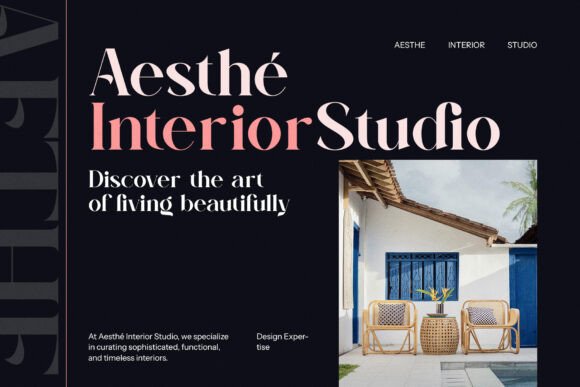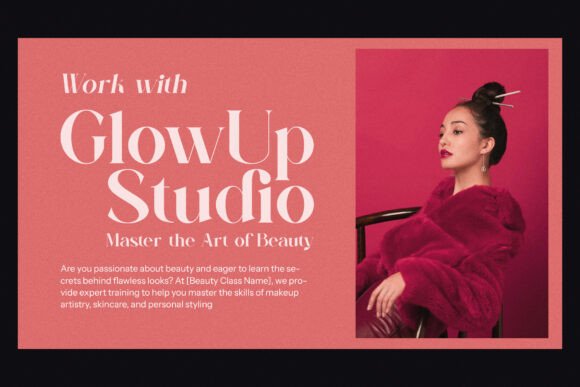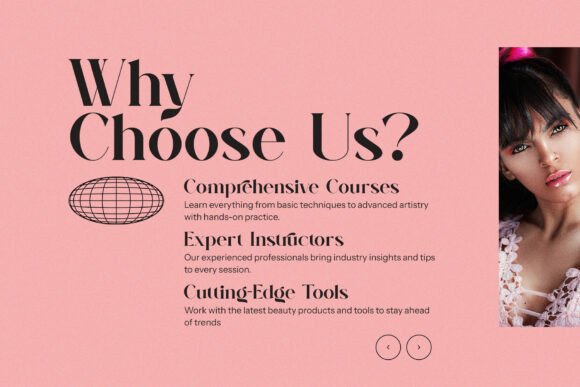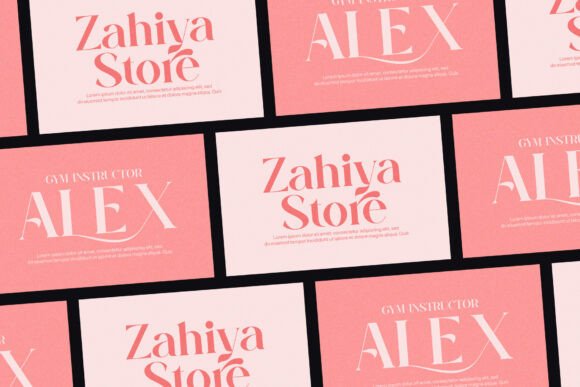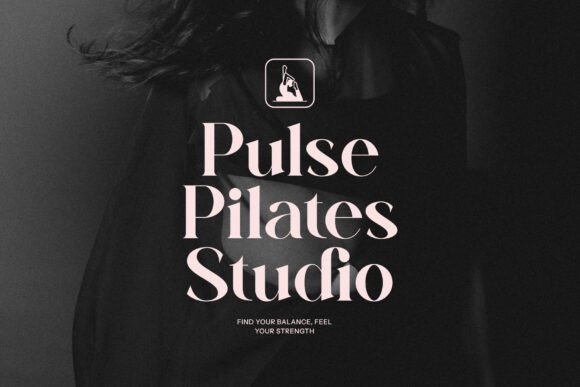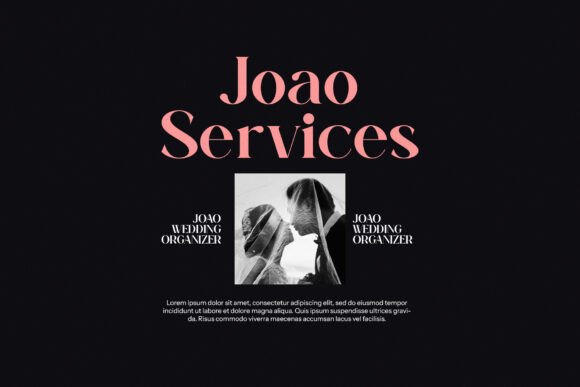
Bloxe Font: Elevate Your Designs with Modern Sophistication
In the world of typography, a font can make or break the visual identity of a brand. For designers and crafters seeking to create a lasting impression, Bloxe Font emerges as a game-changer. This modern typeface redefines sophistication with its clean lines, refined serifs, and artistic details, offering a perfect blend of timeless elegance and contemporary flair.
The Essence of Bloxe Font
Bloxe is more than just a font; it’s a statement piece. Designed to make an impact, it brings a sense of luxury and refinement to any project. Whether you’re creating a logo for a high-end brand, designing product packaging, or curating an eye-catching website, Bloxe is the go-to choice for designers who aim to captivate their audience.
Key Features of Bloxe Font
• Clean Lines and Refined Serifs: Bloxe boasts clean, crisp lines and serifs that exude elegance and sophistication. These features make it perfect for high-end branding, boutique designs, and editorial projects like magazines or brochures.
• Artistic Details: What sets Bloxe apart are its artistic details. The font includes unique ligatures and alternates, providing endless creative possibilities for customized designs. This versatility allows designers to add a personal touch to their work, making it truly stand out.
• Balanced Functionality and Style: Bloxe strikes an ideal balance between functionality and style. Its graceful curves and sharp edges evoke a sense of confidence and professionalism, making it suitable for a wide range of applications.
Applications of Bloxe Font
Bloxe’s versatility makes it an excellent fit for various design projects. Here are some of the areas where Bloxe truly shines:
• Logo Design: Create a lasting impression with a logo that embodies sophistication and elegance. Bloxe’s unique characteristics make it perfect for luxury brands looking to establish a strong visual identity.
• Product Packaging: Elevate your product packaging with a font that communicates quality and refinement. Bloxe helps brands stand out on crowded shelves and convey a sense of premium value.
• Web Design: For websites aiming to leave a lasting impression, Bloxe offers a stylish and professional look. Its clean lines and artistic details ensure that your website stands out in the digital landscape.
• Editorial Projects: Whether you’re designing a magazine, brochure, or any other editorial content, Bloxe provides the perfect blend of elegance and readability, making it an excellent choice for text and headlines.
Why Choose Bloxe Font?
In a market flooded with fonts, Bloxe stands out for several reasons:
• Unique Ligatures and Alternates: The font’s distinctive ligatures and alternates offer designers the flexibility to create customized designs that capture the essence of their brand.
• Elegance and Readability: Bloxe combines elegance with readability, making it suitable for both body text and headlines. Its clarity ensures that your message is conveyed effectively, whether in print or digital formats.
• Timeless Appeal: Unlike trends that fade over time, Bloxe’s classic design ensures it remains relevant for years to come. Investing in Bloxe means you’re securing a font that will continue to enhance your designs in the future.
Bloxe Font is a modern typeface that redefines sophistication with its clean lines, refined serifs, and artistic details. Its unique blend of timeless elegance and contemporary flair makes it an indispensable tool for designers and crafters. Whether you’re aiming to create high-end branding, boutique designs, or editorial projects, Bloxe offers the perfect balance of functionality and style. With its endless creative possibilities and versatile applications, Bloxe is poised to become your go-to font for designs that truly captivate.